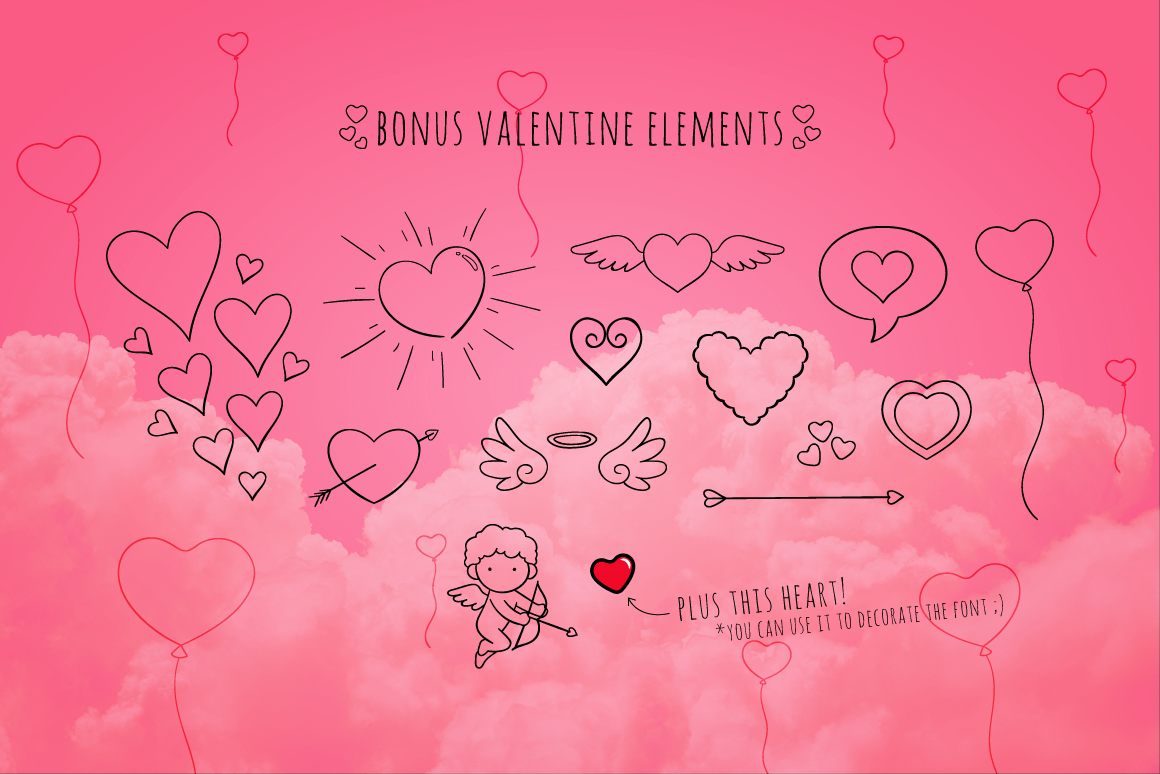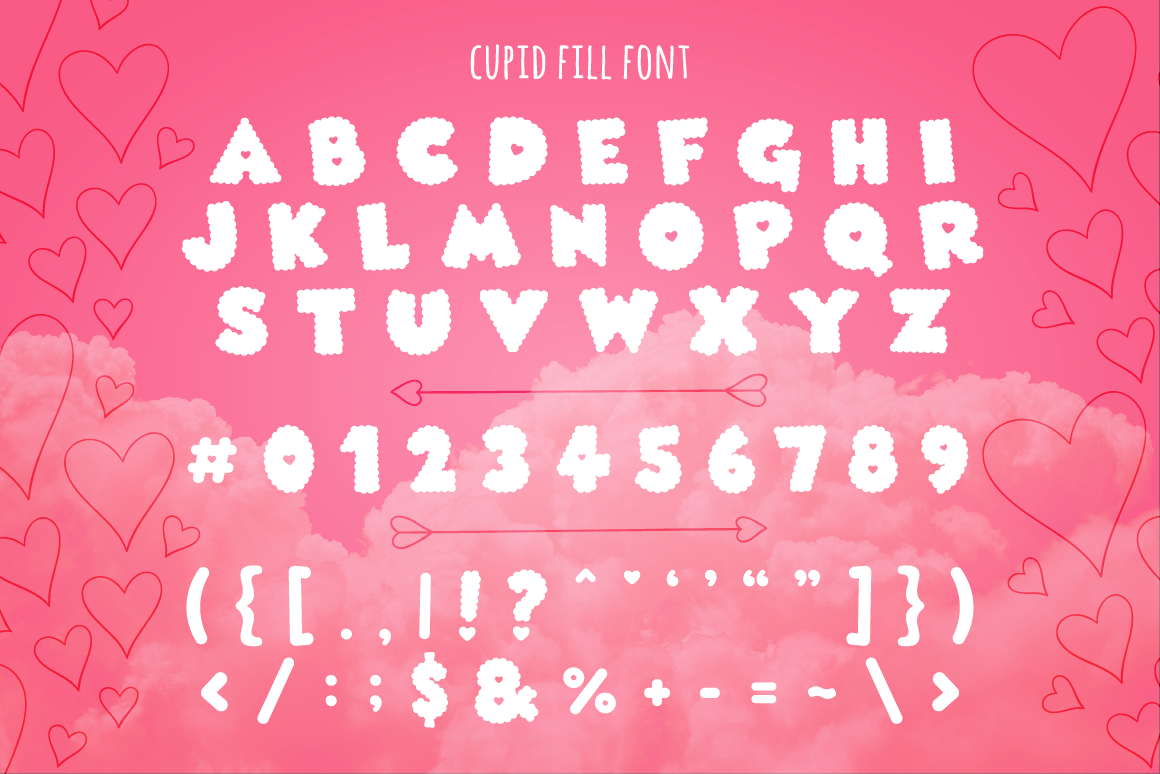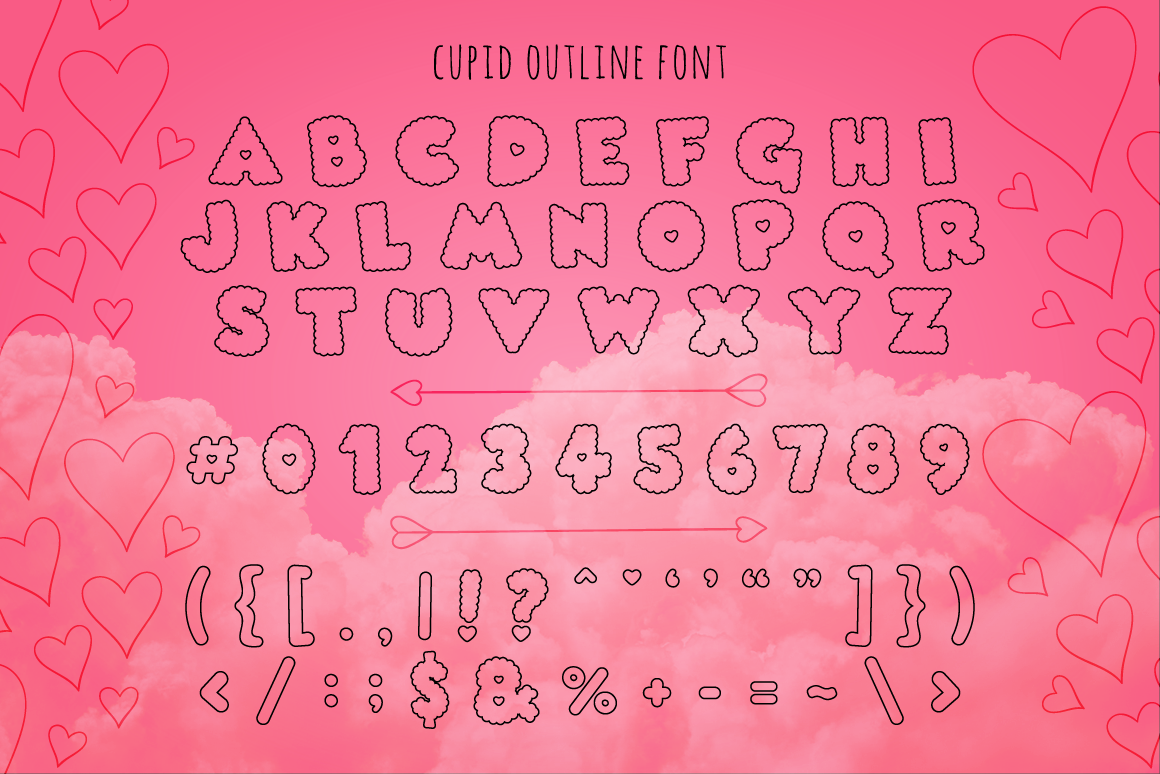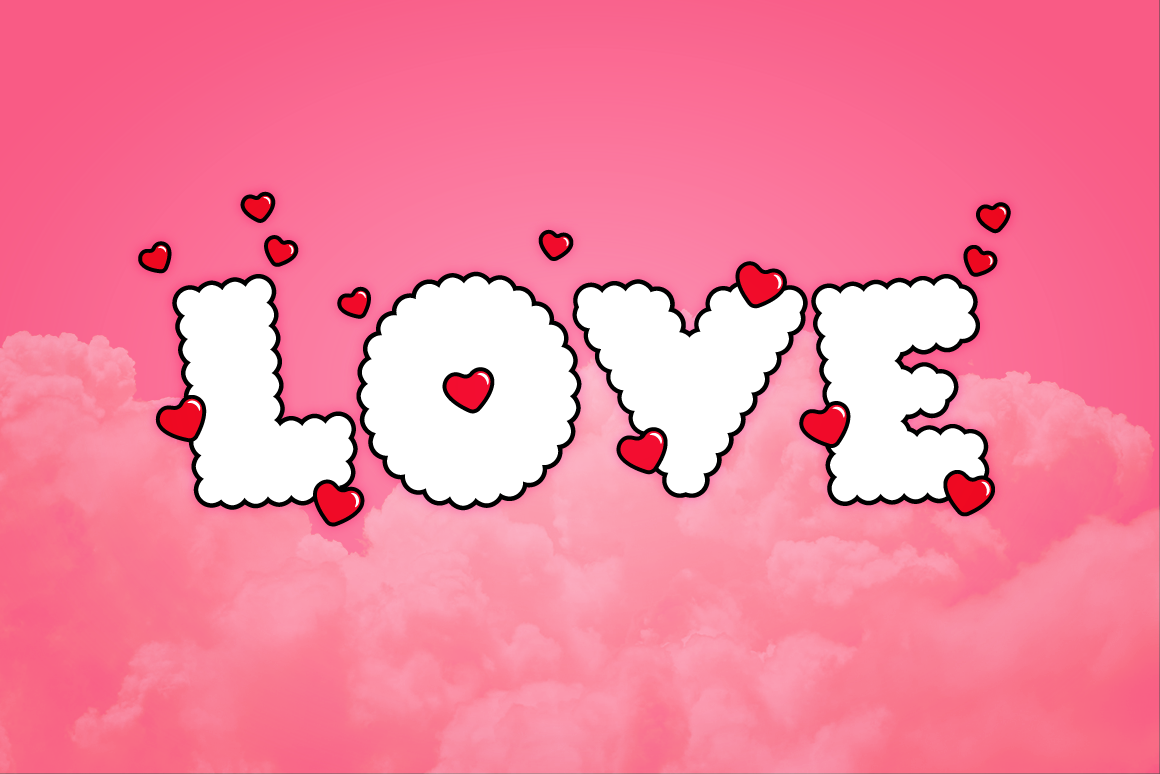
Cupid Font: Add a Touch of Love to Your Designs
Are you looking for a font that will add a dash of romance and whimsy to your designs? Look no further than the Cupid Font! This lovely display font is perfect for Valentine’s Day designs, and its charm will extend far beyond the holiday. In this article, we’ll dive into the details of the Cupid Font, its features, and how you can use it to elevate your designs.
What is Cupid Font?
Cupid Font is a delightful display font that boasts a bubbly styling and thick weight, making it perfect for headlines, titles, and other display text. Its playful and charming vibe is sure to capture the hearts of your audience, and its versatility ensures it can be used in a wide range of design projects.
Key Features of Cupid Font
- 14 Unique Love-Themed Drawings: The Cupid Font comes with 14 individual love-themed drawings that will add a touch of personality to your designs.
Perfect for Valentine’s Day Designs
Valentine’s Day is just around the corner, and the Cupid Font is the perfect addition to your holiday designs. Whether you’re creating greeting cards, social media graphics, or promotional materials, this font will add a touch of romance and whimsy to your designs. The love-themed drawings and bubbly styling will make your designs stand out and capture the hearts of your audience.
Beyond Valentine’s Day: Using Cupid Font in Other Designs
While the Cupid Font is perfect for Valentine’s Day designs, its charm and versatility extend far beyond the holiday. You can use it in a wide range of design projects, such as:
- Wedding and Anniversary Designs: The Cupid Font is a great choice for wedding and anniversary designs, adding a touch of romance and elegance to your materials.
- Love-Themed Products: If you’re creating love-themed products, such as mugs, t-shirts, or phone cases, the Cupid Font is a great choice.
- Children’s Designs: The playful and whimsical nature of the Cupid Font makes it perfect for children’s designs, such as kids’ party invitations or educational materials.
Tips for Using Cupid Font
- Experiment with Colors: The Cupid Font looks great in a variety of colors, so don’t be afraid to experiment and find the perfect hue for your design.
- Mix and Match: Try mixing and matching the different love-themed drawings to create a unique and eye-catching design.
- Use it as a Headline Font: The Cupid Font is perfect for headlines and titles, so use it to add a touch of personality to your designs.
In conclusion, the Cupid Font is a lovely display font that’s perfect for adding a touch of romance and whimsy to your designs. With its 14 unique love-themed drawings, hi-res transparent PNG files, and compatibility with Adobe Illustrator and Photoshop, this font is a must-have for designers and crafters. Whether you’re creating Valentine’s Day designs or looking for a font to add some charm to your everyday projects, the Cupid Font is a great choice.